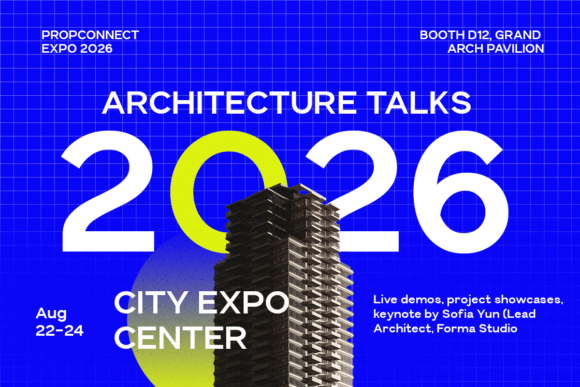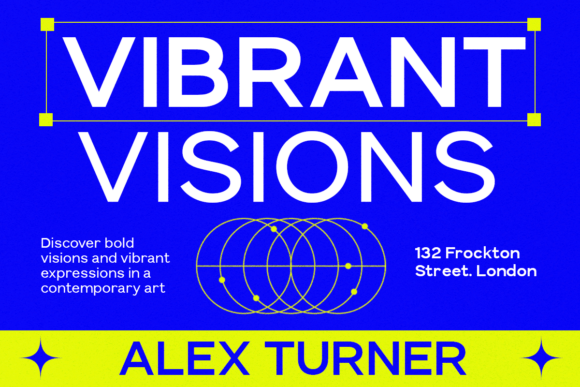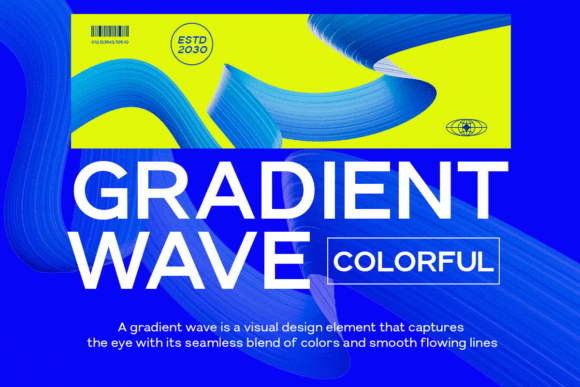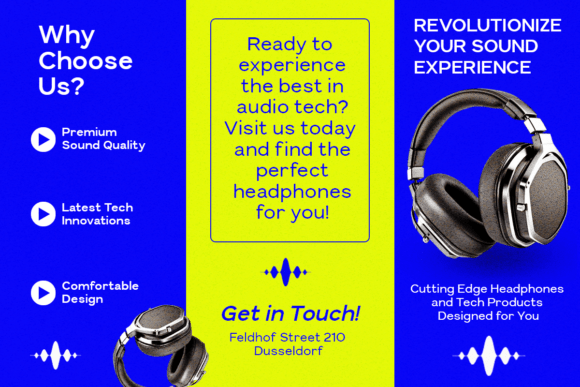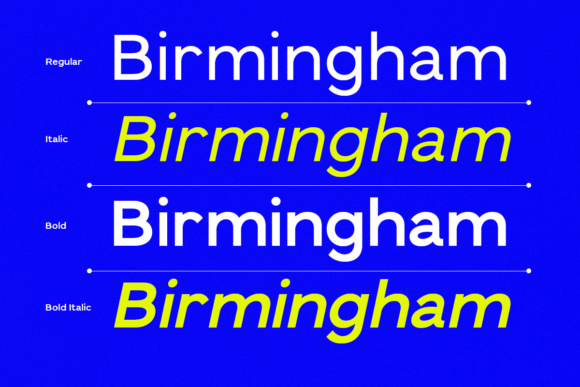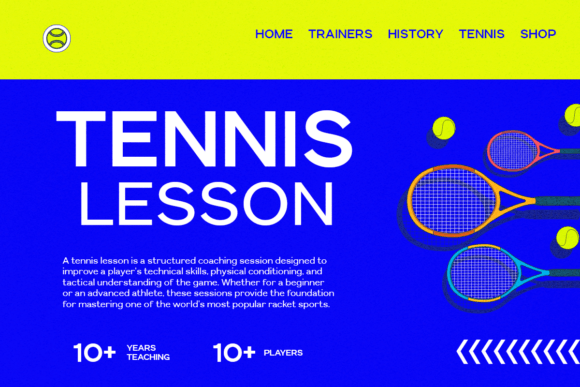
Gatilca Font: Elevate Your Design with a Modern Futuristic Sans Font
In the realm of typography, fonts play a pivotal role in shaping the visual identity of a brand, product, or service. Among the myriad of fonts available, Gatilca stands out as a modern futuristic sans font that embodies the essence of innovation and forward-thinking design. With its sleek geometric structure, balanced proportions, and contemporary letterforms, Gatilca is poised to revolutionize the way designers and crafters approach their creative projects.
The Essence of Gatilca: A Modern Aesthetic
Gatilca’s design is rooted in the principles of modernity and futurism, making it an ideal choice for projects that demand a cutting-edge visual identity. Its sleek geometric structure provides a clean and sophisticated look, while its balanced proportions ensure that the font remains harmonious and aesthetically pleasing. The contemporary letterforms add a touch of innovation, setting Gatilca apart from traditional fonts.
Versatility Across Various Design Applications
One of the key strengths of Gatilca is its versatility. This font is not limited to a specific industry or medium; rather, it can be seamlessly integrated into various design applications. Whether you’re working on technology branding, startup identities, digital interfaces, gaming graphics, or modern advertising design, Gatilca provides a bold typographic presence that commands attention.
Technology Branding and Startup Identities
In the tech industry, a modern and innovative visual identity is crucial for establishing a brand’s presence. Gatilca’s futuristic design makes it an excellent choice for technology branding, as it instantly conveys a sense of forward-thinking and innovation. For startups, Gatilca offers a bold and professional aesthetic that can help establish credibility and trust with target audiences.
Digital Interfaces and Gaming Graphics
Gatilca’s clean and geometric structure makes it an excellent choice for digital interfaces, where clarity and legibility are paramount. In the gaming industry, where visual identity plays a critical role in player engagement, Gatilca’s bold typographic presence can help create a lasting impression.
Modern Advertising Design
In the world of advertising, fonts play a critical role in capturing the audience’s attention. Gatilca’s modern aesthetic and bold typographic presence make it an excellent choice for modern advertising design, where the goal is to stand out in a crowded marketplace.
Cross-Media Compatibility
Another significant advantage of Gatilca is its cross-media compatibility. This font works beautifully across both digital and print media, making it an excellent choice for designers and crafters who work across multiple platforms. Whether you’re designing a website, brochure, or business card, Gatilca ensures that your visual identity remains consistent and impactful.
In conclusion, Gatilca is a modern futuristic sans font that offers a clean, innovative, and forward-thinking visual identity. With its sleek geometric structure, balanced proportions, and contemporary letterforms, Gatilca is poised to revolutionize the way designers and crafters approach their creative projects. Its versatility, cross-media compatibility, and bold typographic presence make it an excellent choice for a wide range of design applications. Whether you’re working on technology branding, startup identities, digital interfaces, gaming graphics, or modern advertising design, Gatilca is the perfect font to elevate your design and make a lasting impression.